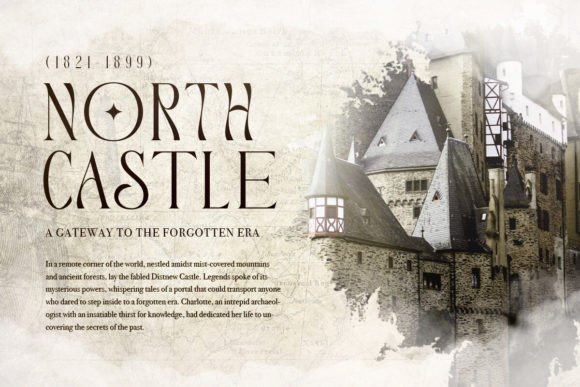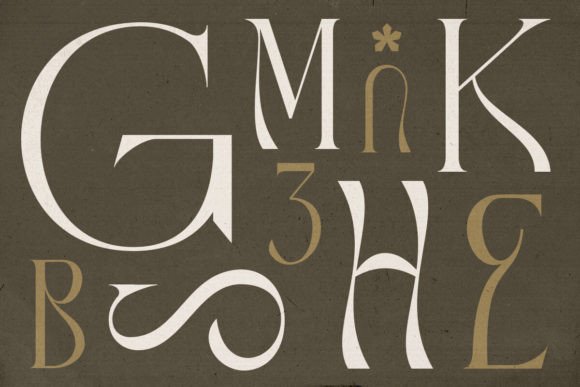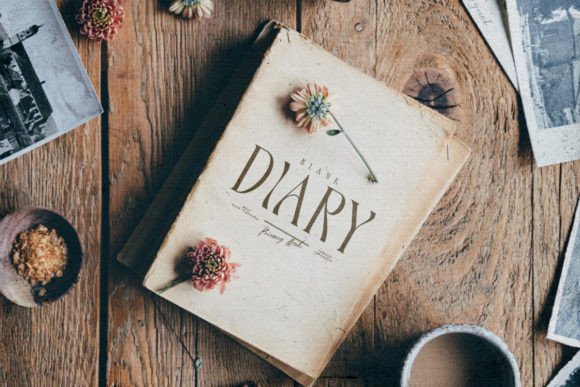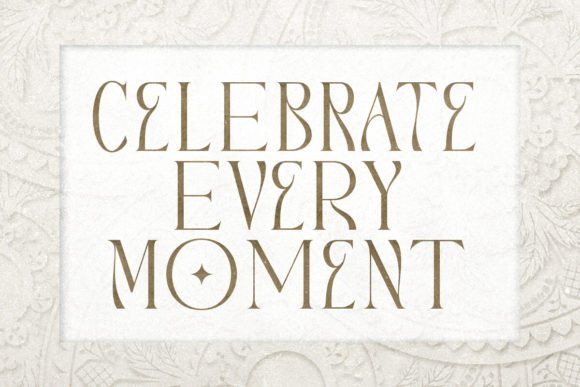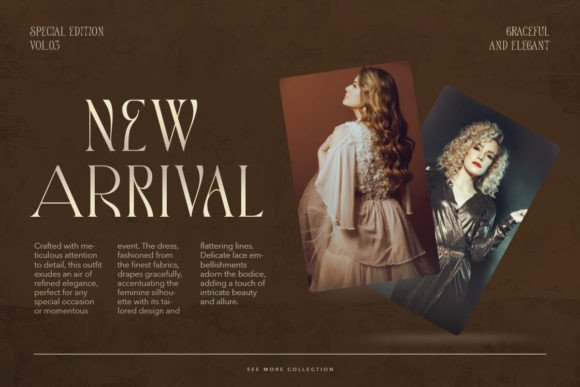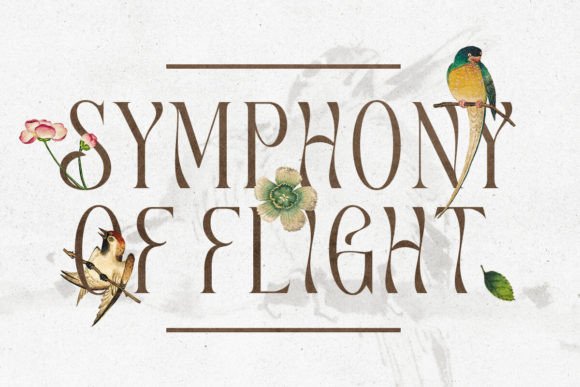
Introduction to Marione Font
Have you ever stumbled upon a font that instantly sparks creativity and makes you want to create something new? For designers, that moment is priceless. It’s like discovering a hidden treasure that sets your imagination ablaze. And that’s exactly what happens when you lay eyes on the Marione Font.
This modern serif font is a game-changer, boasting a unique twisted shape that adds a touch of sophistication to any design. Whether you’re working on a wedding invitation, book cover, or poster, the Marione Font is sure to elevate your project to new heights. With its tall, distinctive uppercase letters and classic, wide lowercase letters, this font is a design resource that’s hard to resist.
Key Features of Marione Font
- High-quality design resource ideal for creative projects, offering a unique and stylish look.
- High-resolution design, perfect for print and digital applications, including posters, flyers, and social media graphics.
- Designed to be versatile, suitable for a wide range of creative projects, from branding and advertising to editorial and packaging design.
Honest Review: Marione Font
As a designer, I’m always on the lookout for high-quality design resources that can elevate my creative projects. Recently, I stumbled upon Marione Font, and I’m excited to share my honest review with you.
- Its clean and modern design makes it perfect for a wide range of creative projects, from logos to typography-based designs.
- The font library is relatively small, which might limit its versatility for complex design projects.
- The font may not be suitable for projects that require a high level of customization or extensive font pairing.
Overall, I’m impressed with Marione Font’s simplicity and flexibility. While it may have some limitations, it’s an excellent addition to any designer’s toolkit. If you’re looking for a high-quality, free font for your creative project, Marione Font is definitely worth checking out.
Tips for Getting the Most Out of Marione Font
To get the most out of Marione Font, experiment with different font sizes, colors, and combinations. You can also use Marione Font in conjunction with other design resources to create unique and eye-catching designs.
Common Use Cases for Marione Font
Marione Font is perfect for a variety of creative projects, including social media graphics, presentations, and documents. Its high quality and versatility make it an ideal choice for designers and non-designers alike.